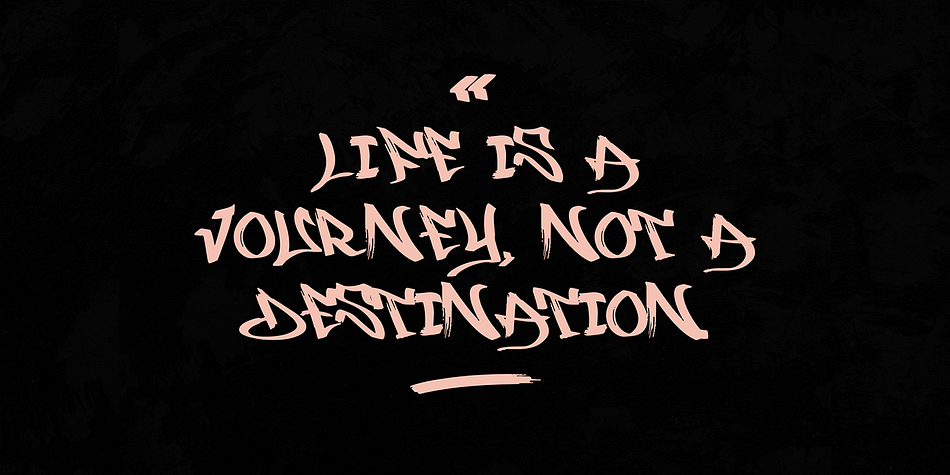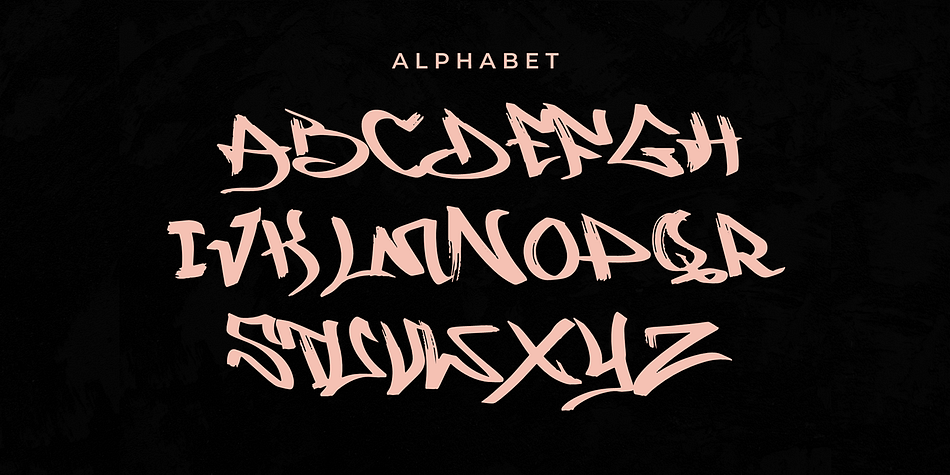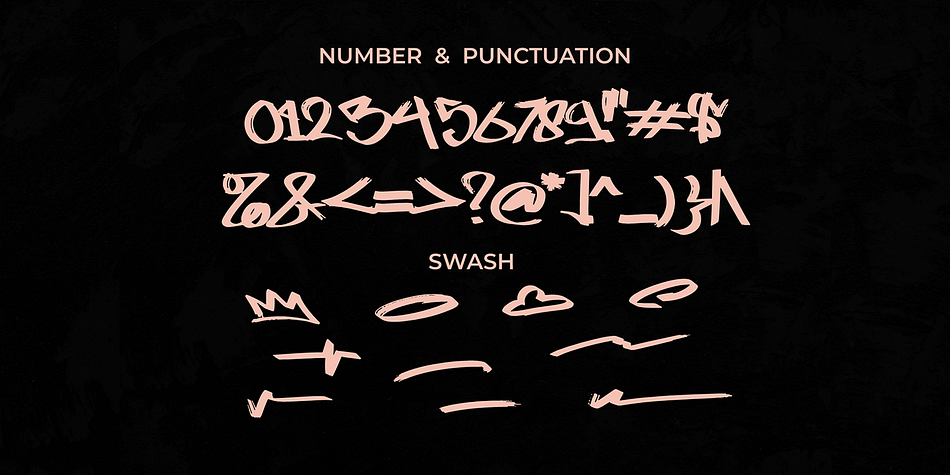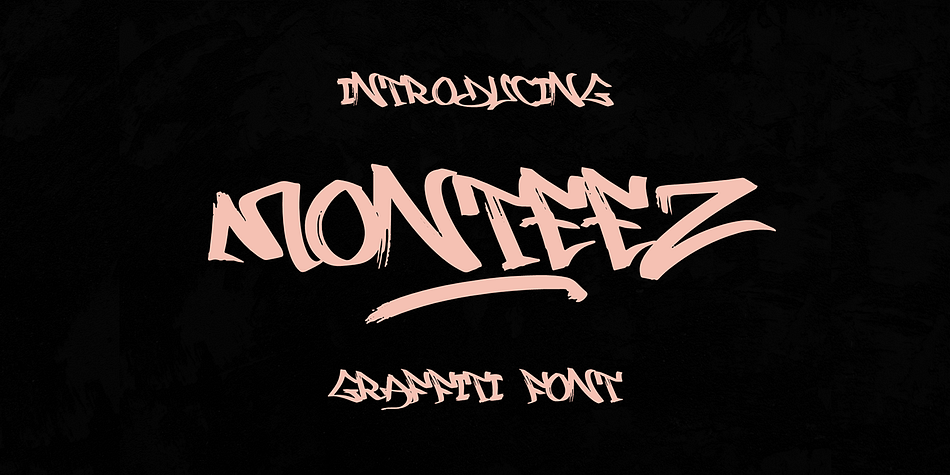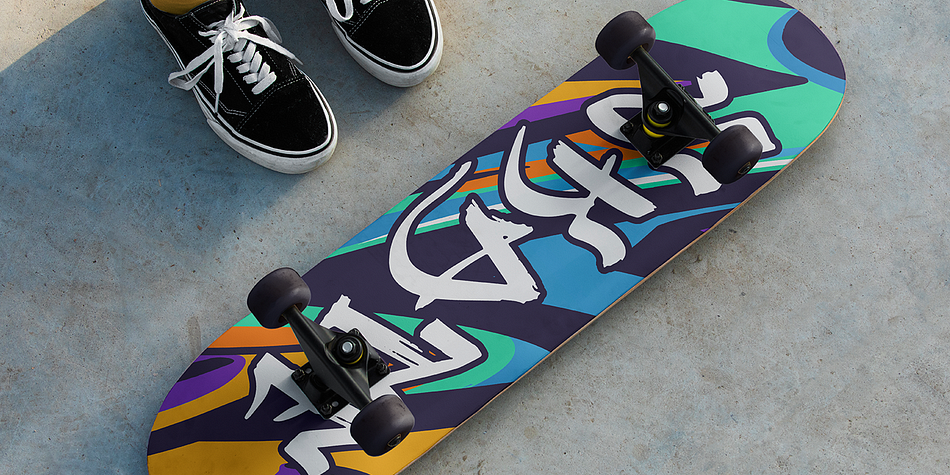
MONTEEZ
Monteez is a grunge and hand display font family published by Cikareotype Studio.
“Monteez” is a brush graffiti font characterized by its monoline style. Brush graffiti fonts typically emulate the look of hand-painted lettering created with brush strokes, resulting in a raw and expressive aesthetic. The monoline style maintains consistent stroke thickness throughout the characters, giving the font a uniform and cohesive appearance.
With its brush-inspired design and monoline style, “Monteez” offers a blend of spontaneity and consistency, making it suitable for a variety of design projects. Whether used for urban-themed designs, street art, posters, or branding materials, this font adds a touch of authenticity and creativity to the typography, enhancing the overall visual impact of the composition.
Versatile for branding, headline, or printing product